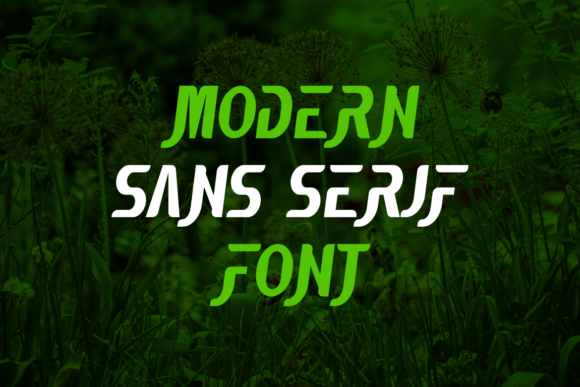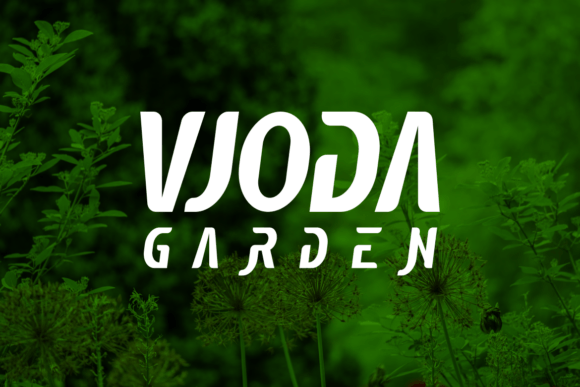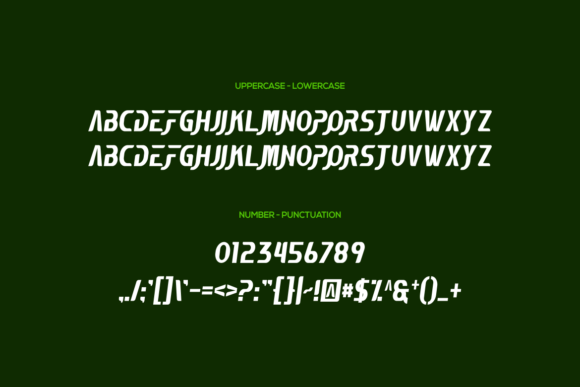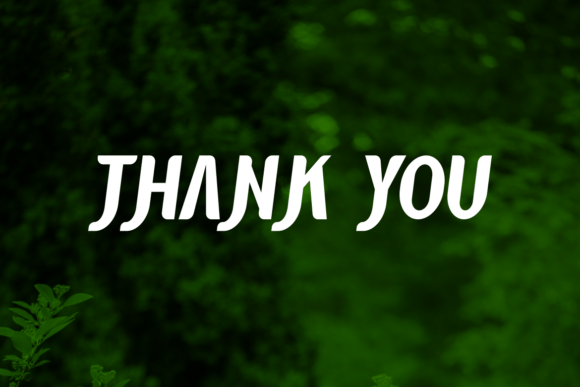
Introduction to Moundale Font
Moundale is a sleek and modern sans-serif font that combines bold curves with futuristic cuts, creating a unique and dynamic aesthetic.
Perfect for branding, logos, headlines, and eco-friendly or tech-inspired designs, Moundale conveys innovation and sophistication Its versatile style makes it a standout choice for projects that demand a contemporary, clean, and energetic vibe.
Key Features of Moundale Font
Why Choose Moundale Font?